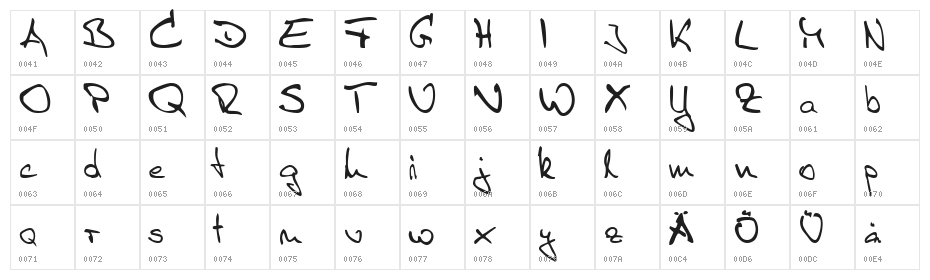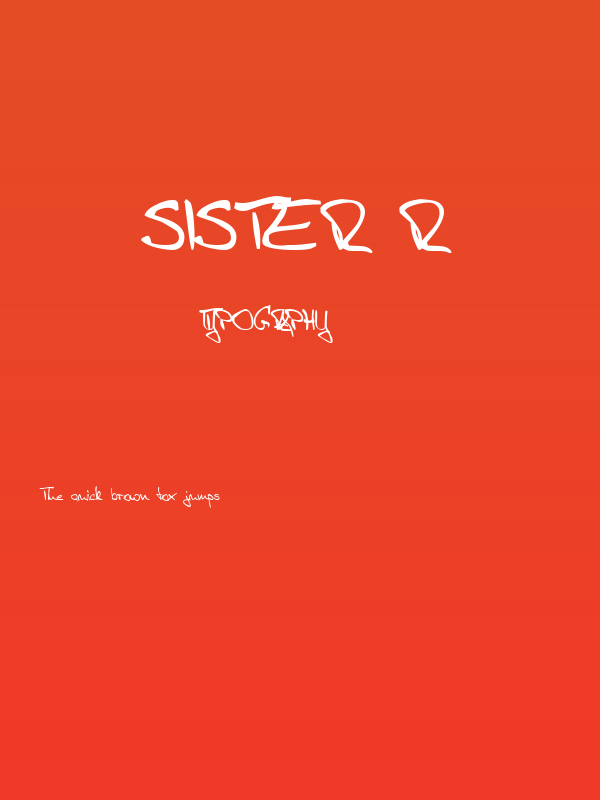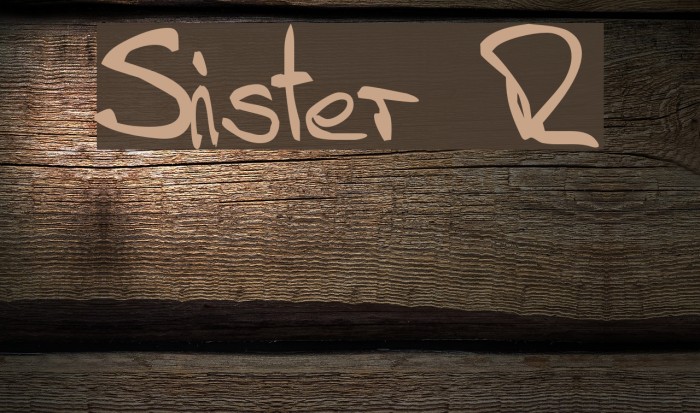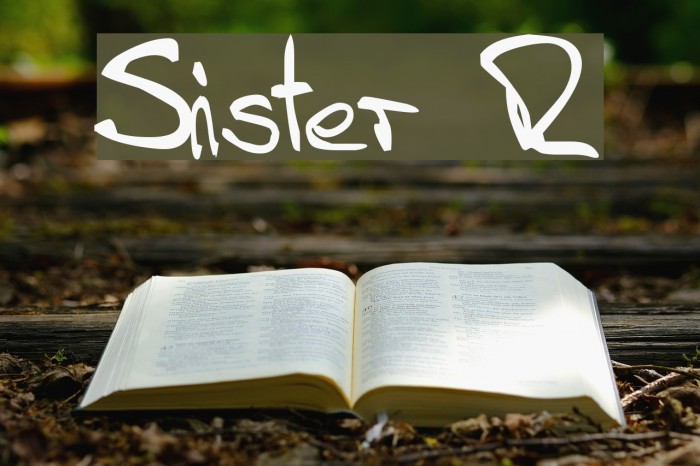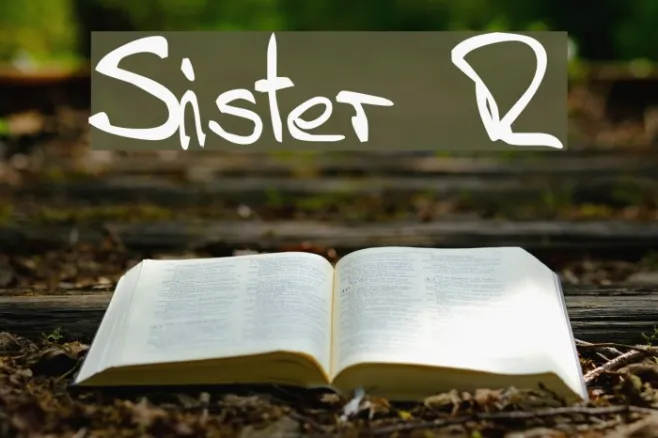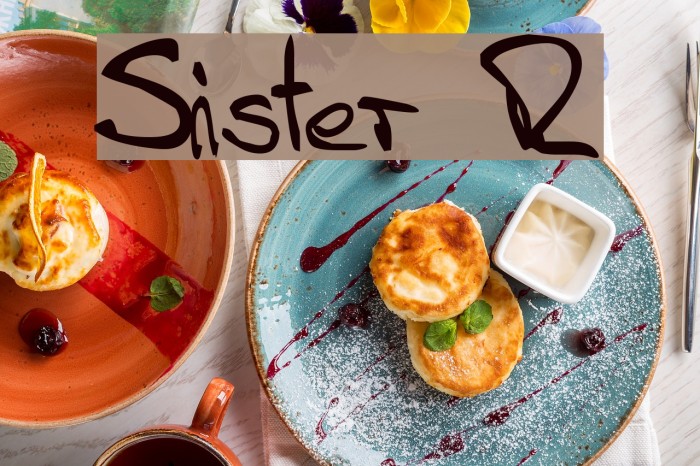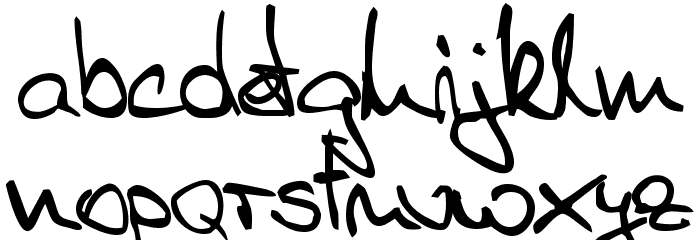
Sister R Font
Sister R Description
This font exhibits a dynamic and expressive handwritten style, characterized by its fluid and spontaneous strokes. The uppercase letters are bold and slightly irregular, giving a sense of movement and energy. The lowercase letters maintain a similar style, with some letters extending below the baseline, adding to the casual and artistic feel. The overall appearance is informal and personal, making it ideal for projects that require a touch of individuality and creativity. The font lacks uniformity in stroke width, contributing to its organic and natural look.
| Proposed Projects | Ideal for creative projects like greeting cards, invitations, personal branding, and artistic posters. |